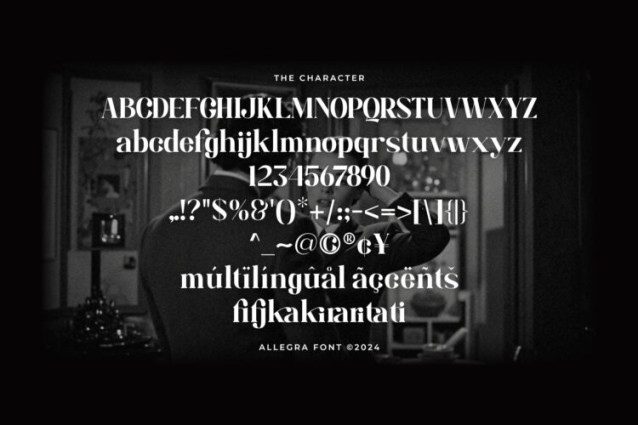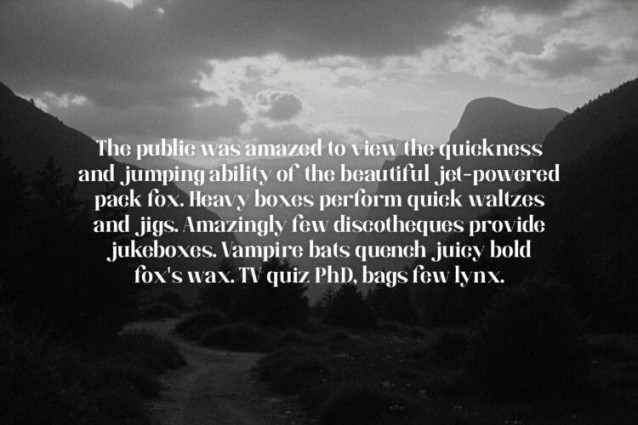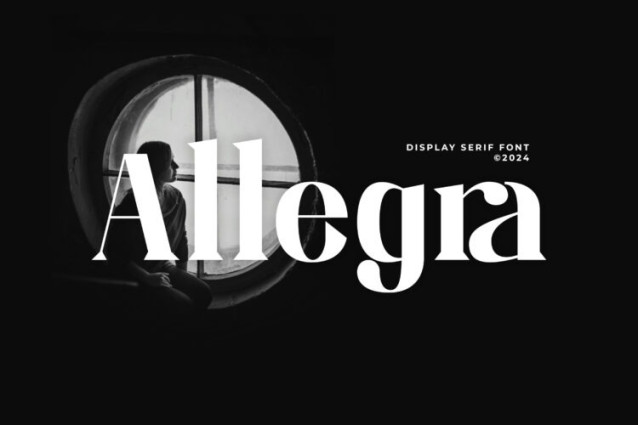
Allegra Serif Font
Allegra Serif Font is a refined serif typeface that combines elegance with modern style. The bold, high-contrast letters create a strong visual impact, ideal for headlines, logos and editorial designs.